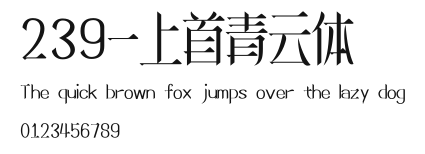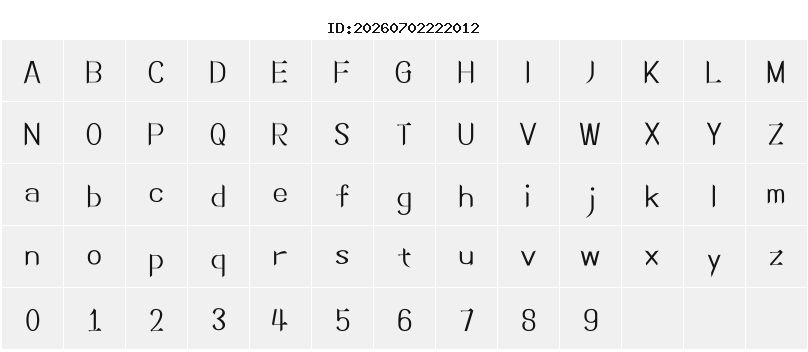
239-上首青云体 Preview
• Font Name: 239-上首青云体
• Font ID: 239-SS Qing Yun Ti:Version 6.00
• Full Font Name: 239-上首青云体
• Version: Version 6.00 April 12, 2023
• PostScript Name: 239-SSQingYunTi
• Character Count: 7569
• Manufacturer: 上首造字
About 239-上首青云体.ttf
239-上首青云体.ttf is a modern, elegant sans-serif font designed for ultimate readability and visual harmony. Perfect for branding, headlines, web design, and print materials.